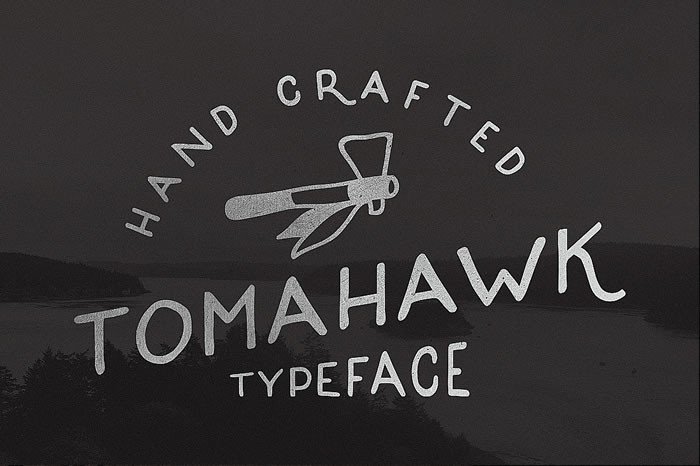
Step into the world of Tomahawk Font, a masterpiece crafted by Noe Araujo, and let your designs radiate with a vintage charm like never before. This display font family, inspired by native Americans, rustic works, and folks, is a true gem for those seeking an authentic vintage touch.
Tomahawk Font, with its captivating glyphs, is an ideal choice for creating vintage designs that evoke a sense of history and nostalgia. Uncover the beauty of your vintage logos, posters, quotes, clothing, sticker designs, and other creative projects with the Tomahawk Font's exceptional character.
Immerse yourself in the Tomahawk Font's remarkable features and watch your designs flourish. With its unique, expressive letterforms, your projects will exude a sense of authenticity and charm, capturing the attention of anyone who encounters them.
Make Tomahawk Font your trusted companion for creating exceptional designs that stand out from the crowd. Join the ranks of satisfied designers who have harnessed the power of Tomahawk Font to create stunning vintage masterpieces.